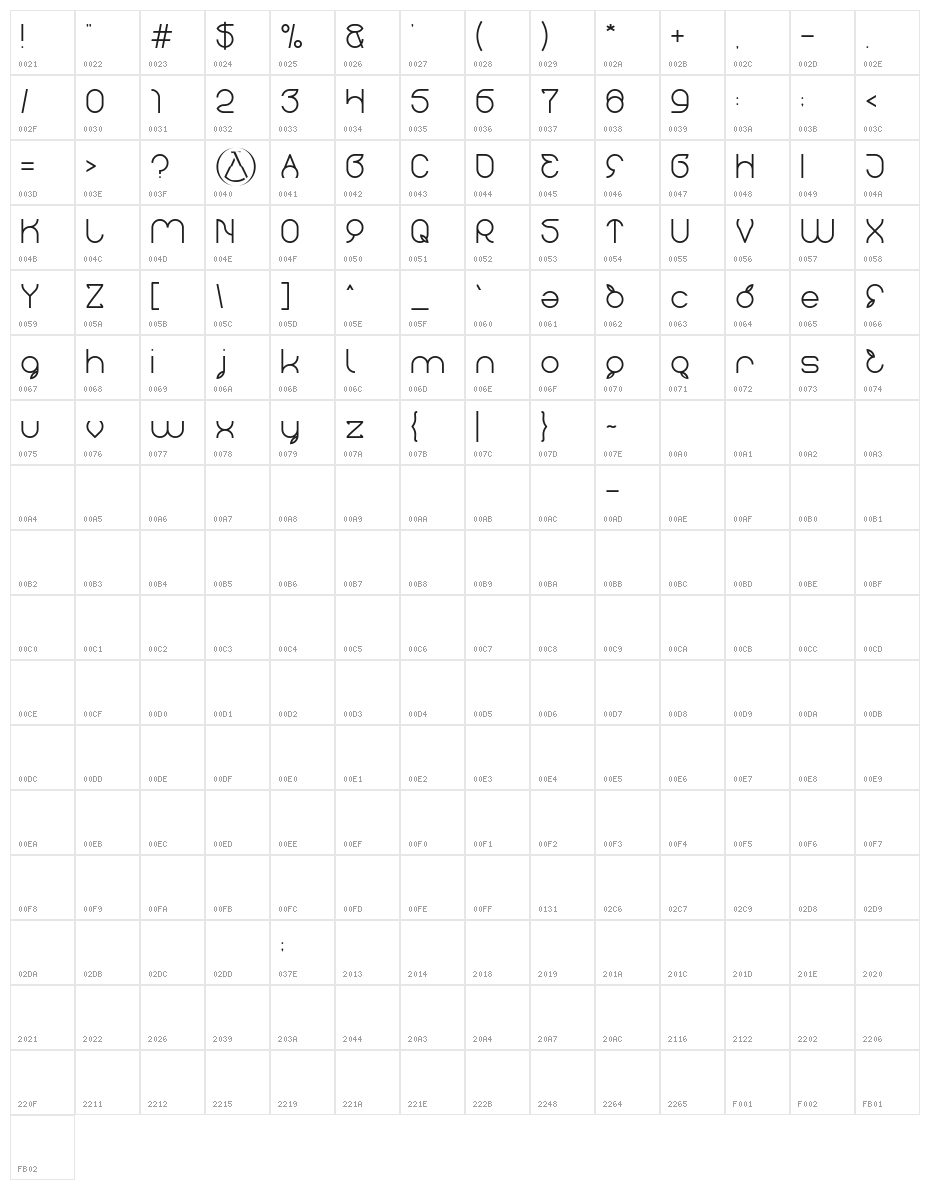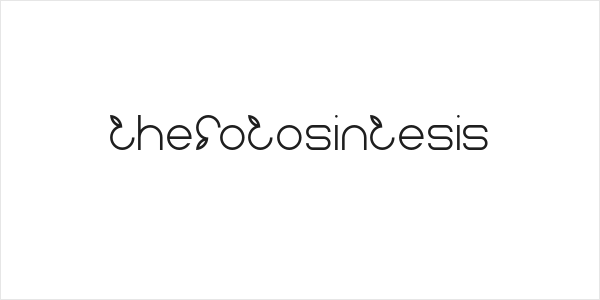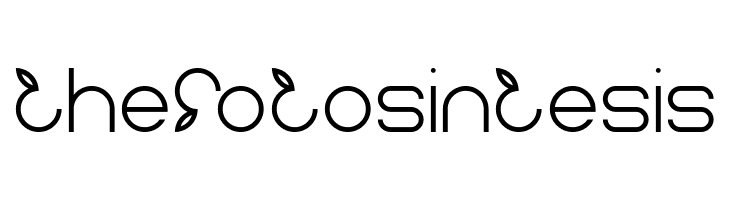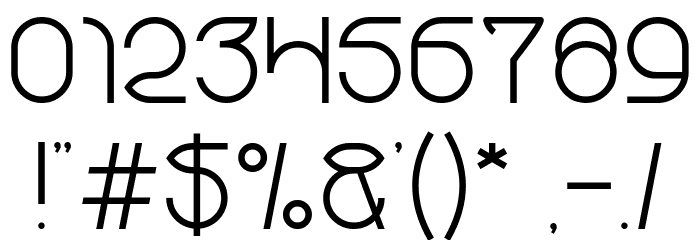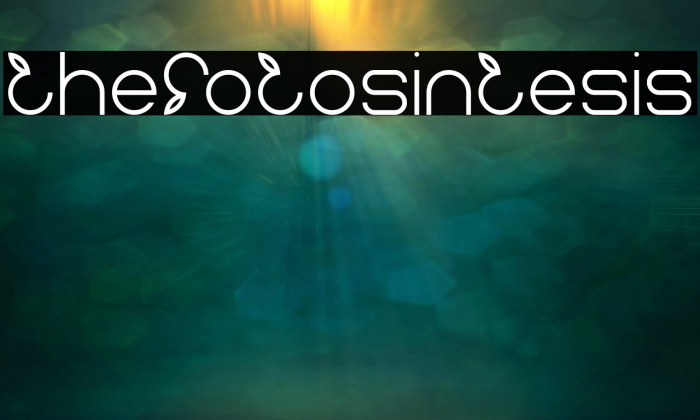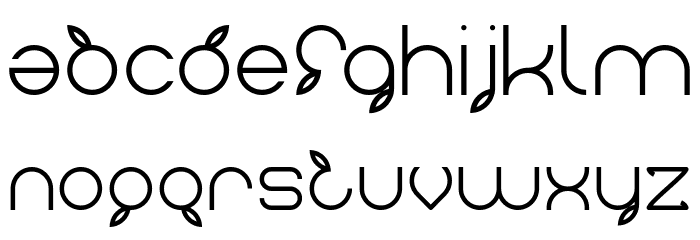
thefotosintesis Font
thefotosintesis Description
This font features a unique and modern design with a playful twist. Each character is crafted with a clean, geometric structure, incorporating subtle leaf-like elements that add a touch of nature-inspired whimsy. The uppercase and lowercase letters maintain a consistent style, with rounded edges and smooth curves that create a harmonious flow. Numbers and special characters are designed to match the overall aesthetic, ensuring a cohesive look across all text. The font's distinct style makes it stand out, while its readability remains intact, making it suitable for various creative applications.
| Proposed Projects | Ideal for eco-friendly branding, children's books, creative posters, and nature-themed projects. |